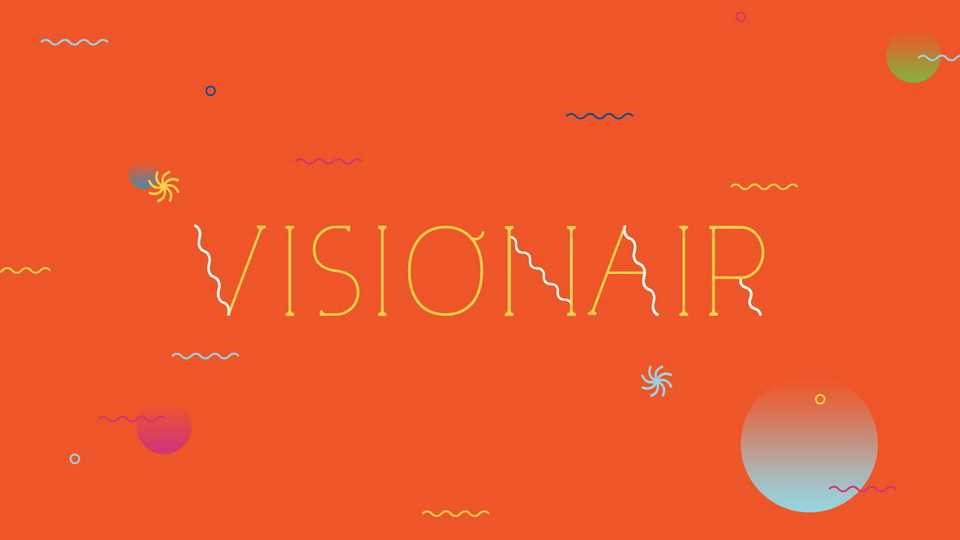
Download Visionair font, a fun and cool typeface inspired by current Japanese simple and fun typography. Mixing serif and wave shapes, Visionair is perfect for projects that can have a lot of fun and joyfulness.
Designer: Pedro Nekoi